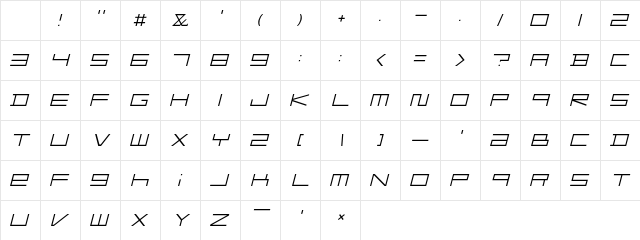
Complete F-Zero GX Menu Font Thin Italic glyph index. Displaying only characters natively supported by F-Zero GX Menu Font Thin Italic font.
F-Zero GX Menu Font Thin is a composed and adaptable typeface that performs quietly and consistently across a wide range of design contexts. The slanted form adds forward momentum and visual energy. Its slender proportions lend an understated elegance to any composition.
Pro Tip: Use F-Zero GX Menu Font Thin for emphasis, pull quotes, and subheadings where its slanted energy can add rhythm to the layout.